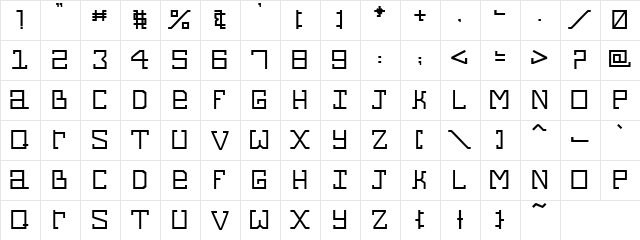
Alphecca Regular
| Designer | Andrew Hungerford |
Design Context for Alphecca Typeface
Alphecca offers clean, dependable letterforms without strong stylistic allegiance, making it a practical choice for designers who need flexibility.